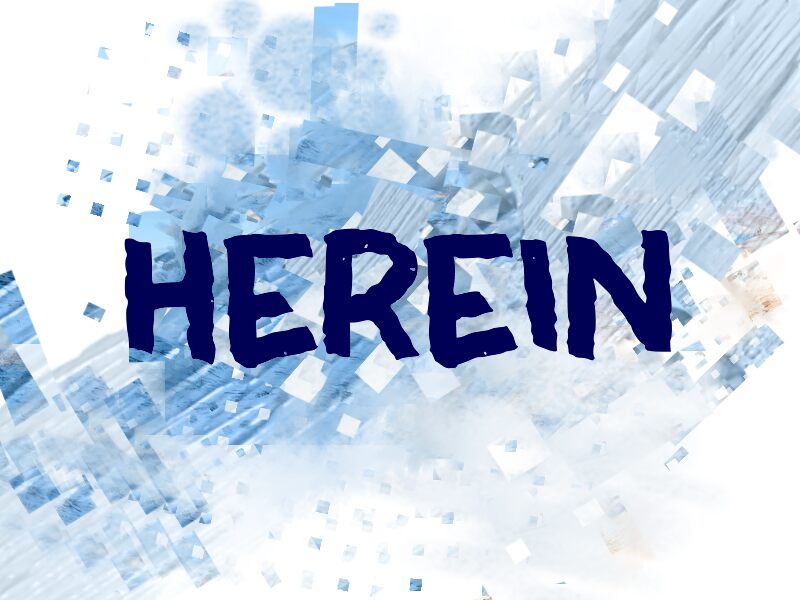
HEREIN
Herein font, designed by wep, splashes dynamic energy into your designs with its bold brush strokes. Playful and irregular, its chunky letters echo retro or comic influences, lending an informal and friendly vibe to any project. This free font marries a fun aesthetic with approachability for a truly enjoyable typographic experience.
Perfect for children's branding, entertainment packaging, comic books, advertising targeting a youthful audience, or inviting digital interfaces; it’s also ideal for book covers, posters, video games design titles or logos. Use it in apparel design prints or merchandise packaging projects too!